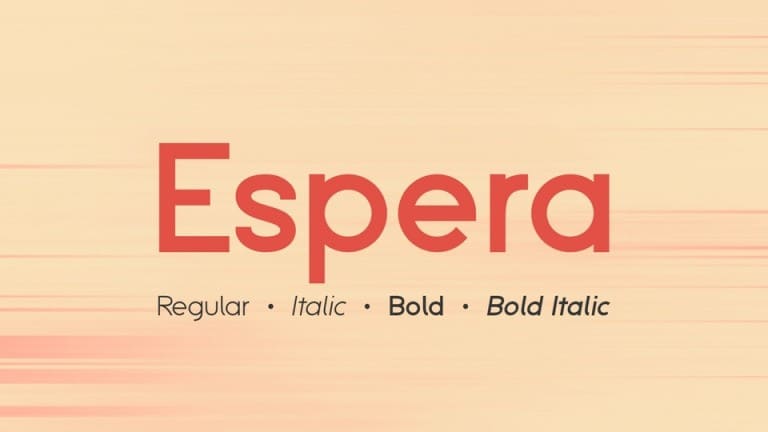
Espera Sans Serif Font
Introducing Espera Font – is a new contemporary sans serif font family focusing on balance and quality for high professional use. Designed with a lot of attention to details and versatility,
Espera Font could satisfy all kinds of demands such as editorial design, brand creation, graphic design, signage as well as on screen, apps, web sites, ebooks, etc.